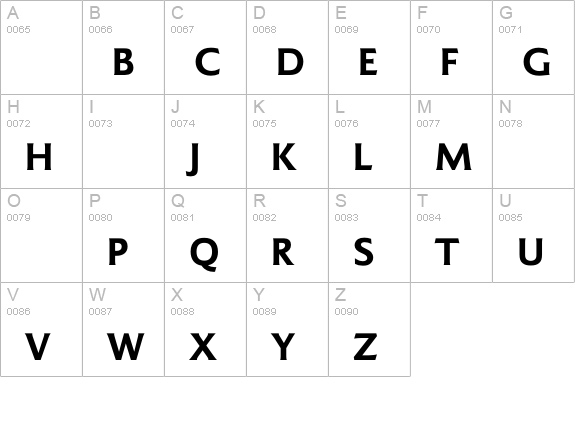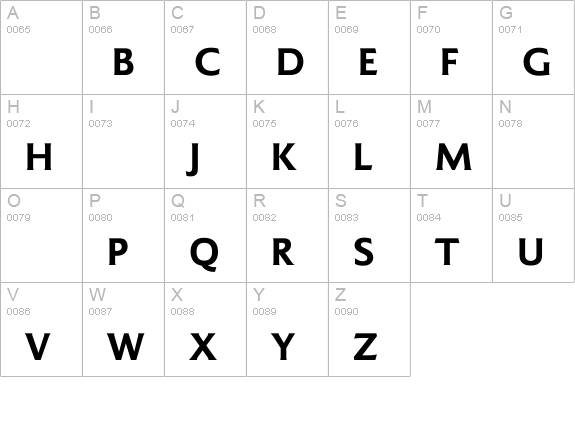
SainsburyExtraBold Font Details
Introducing SainsburyExtraBold, a font that boldly stands out from the crowd and commands attention with its strong and confident presence. This versatile typeface exudes a sense of power and sophistication, making it perfect for a wide range of creative projects. The SainsburyExtraBold font offers a unique blend of elegance and strength, combining thick and bold letterforms with just the right amount of curves and angles. Each character is meticulously crafted to ensure legibility and readability, even at smaller sizes. With its commanding presence, SainsburyExtraBold is ideal for headlines, titles, logos, and branding materials that require a strong and impactful visual identity. Its bold strokes and precise detailing make it an excellent choice for signage, posters, and advertising campaigns that demand attention and make a lasting impression. But what sets SainsburyExtraBold apart from other fonts is that it is not only visually striking, but it is also freely available to download at FontsMarket.com. Yes, you read that right – this exceptional typeface can be yours, completely free of charge. FontsMarket.com is your go-to destination for high-quality fonts, and SainsburyExtraBold is just one of the many incredible options available. So, whether you're a designer, a content creator, or simply someone who appreciates the power of a great font, SainsburyExtraBold is a must-have addition to your collection. Download it today at FontsMarket.com and unleash its bold and captivating energy in your next creative project.